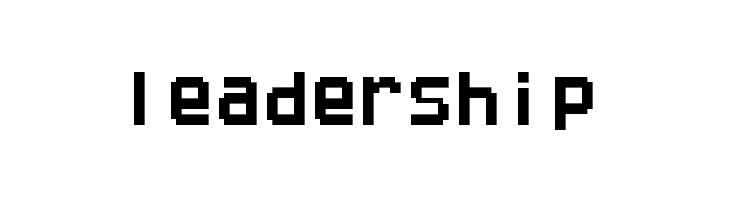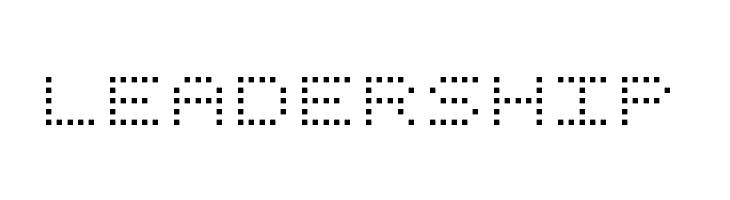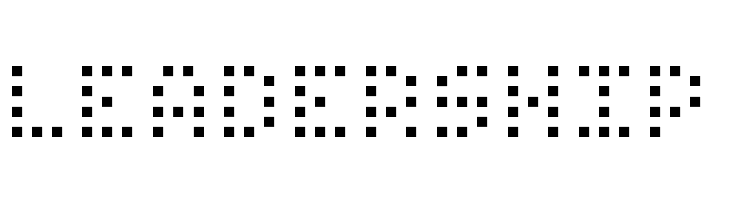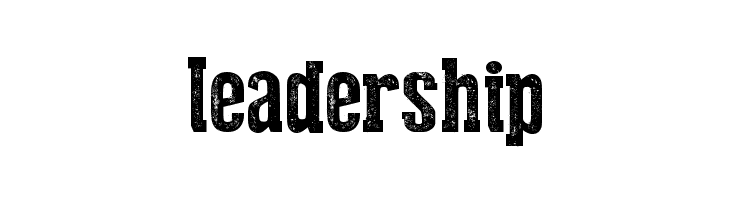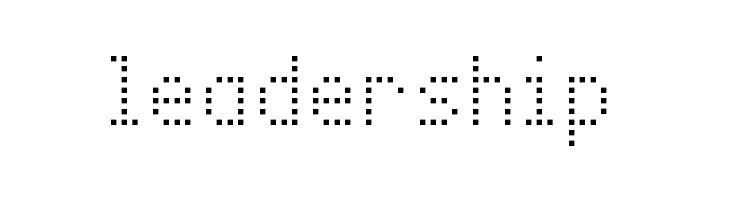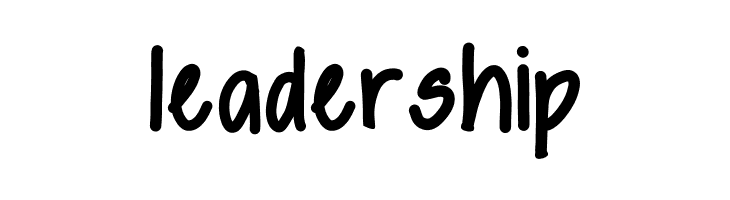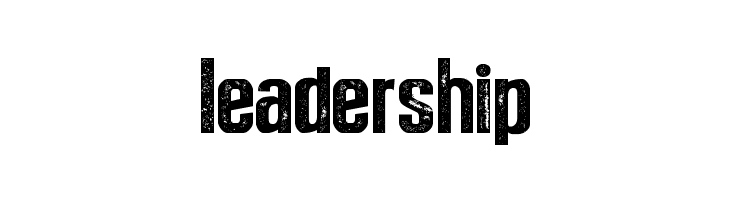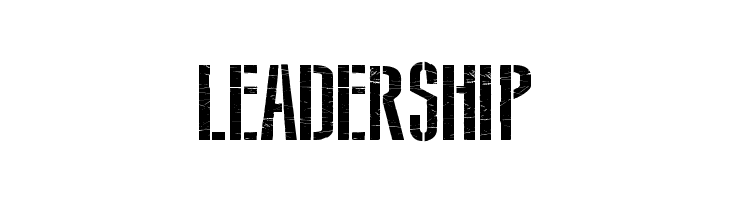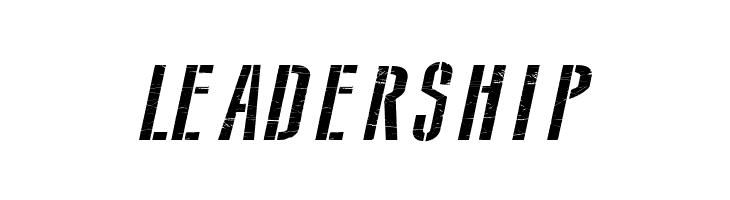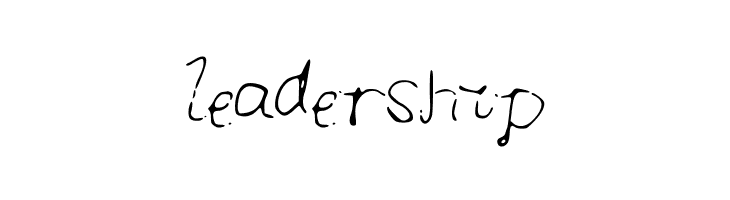
A pixelated, monospaced font with a retro digital style.
A digital-style font made of square dots, evoking a retro tech feel.
A digital dot matrix font with a retro, tech-inspired style.
A digital, retro font inspired by classic LED displays with a geometric, pixelated style.
A bold, distressed serif font with a vintage, textured appearance.
A dot matrix style font with a digital, retro aesthetic.
A digital-style, italic font resembling a seven-segment display.
A digital, seven-segment display style font with a geometric and technical look.
An Arabic-inspired font with flowing, calligraphic strokes.
A dot matrix font with a modern, digital aesthetic and italic style.
A bold, decorative font with a grunge texture and thick outlines.
A dot matrix style font with a digital, retro feel.
A dot matrix LED-style italic font with a modern digital look.
A pixelated, retro-style font with a blocky, digital appearance.
A classic serif font with elegant strokes and balanced proportions.
A bold, classic serif font with elegant and traditional Italian influences.
A tall, narrow, and modern font with clean lines and a sleek appearance.
A classic serif font with medium contrast and elegant bracketed serifs.
A bold, dramatic font with angular serifs and a classic blackletter influence.
A classic and elegant serif font with a slight italic slant and moderate contrast.
A modern, rounded sans-serif font with a friendly and approachable style.
A bold, distressed font with a vintage, textured appearance.
A bold, modern sans-serif font with a geometric and playful style.
A bold, distressed stencil font with a rugged, vintage aesthetic.
Bold, italicized font with a distressed, grunge texture and Soviet-era aesthetic.
A classic serif font with high contrast and elegant serifs.
A geometric, futuristic font with a digital, pixelated style.
Decorative icon-based font with playful, outlined numerals.
A bold, futuristic font with sharp, angular lines and a geometric style.
A bold, geometric font with thick strokes and a modern, impactful style.